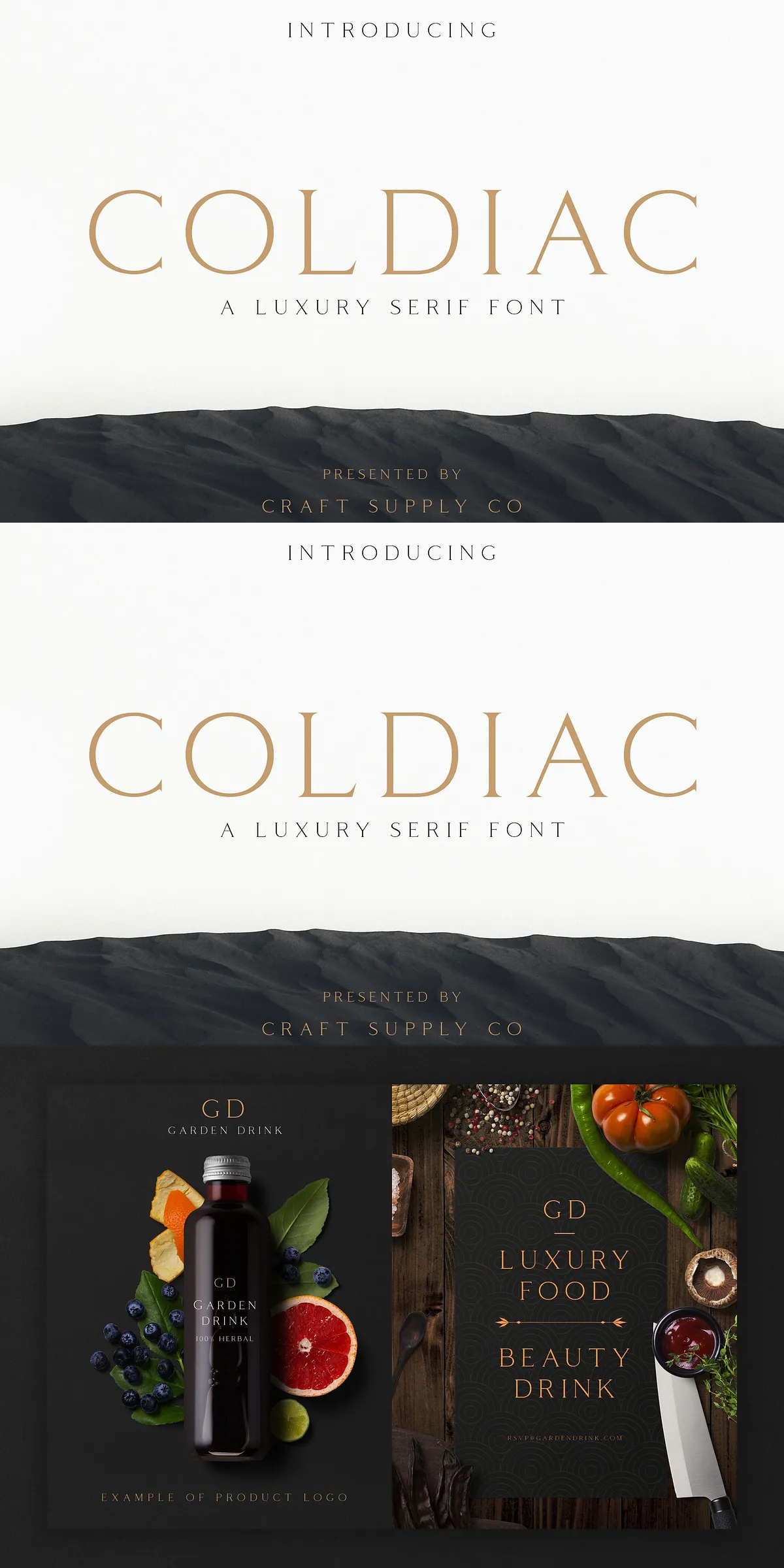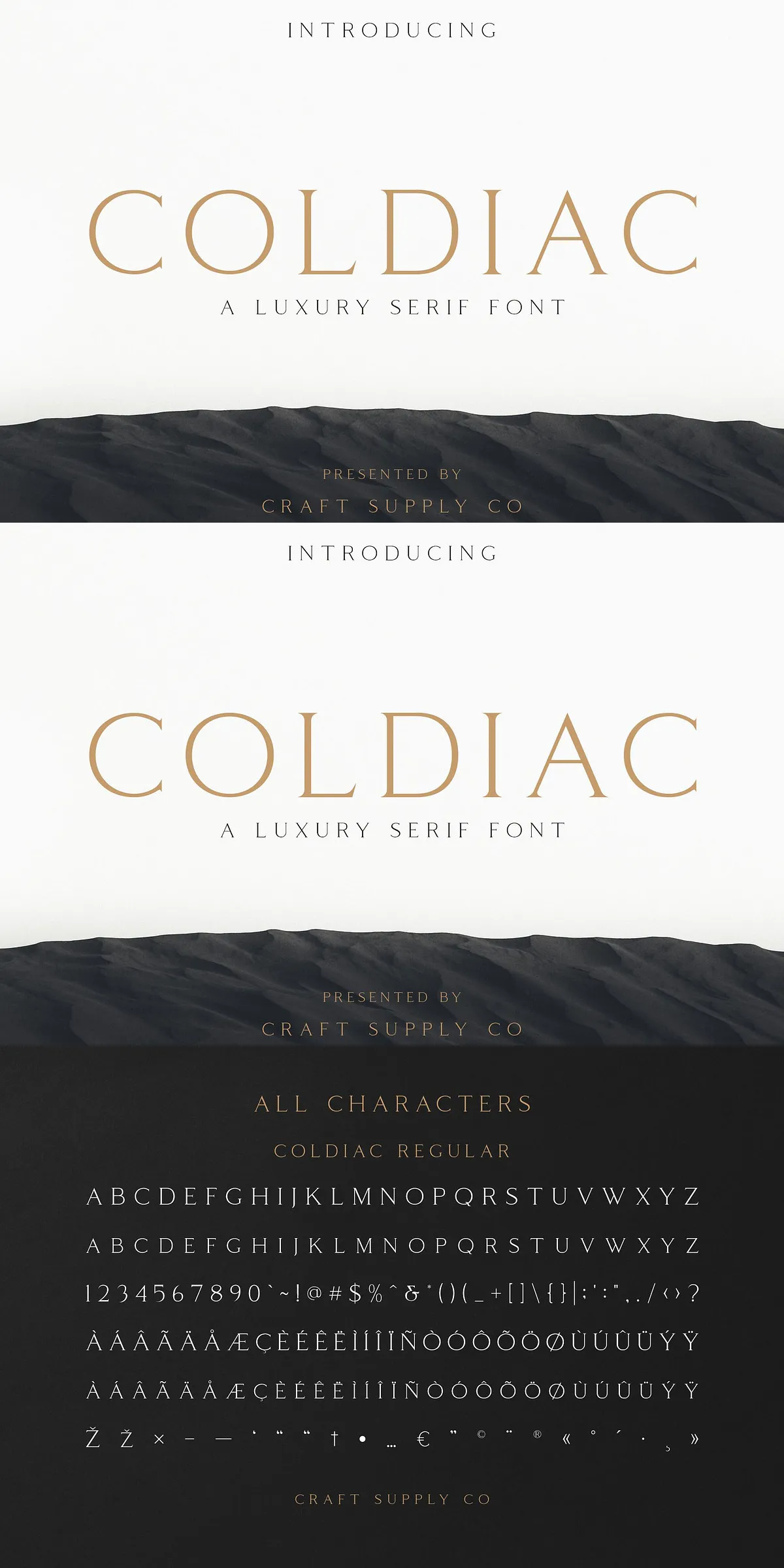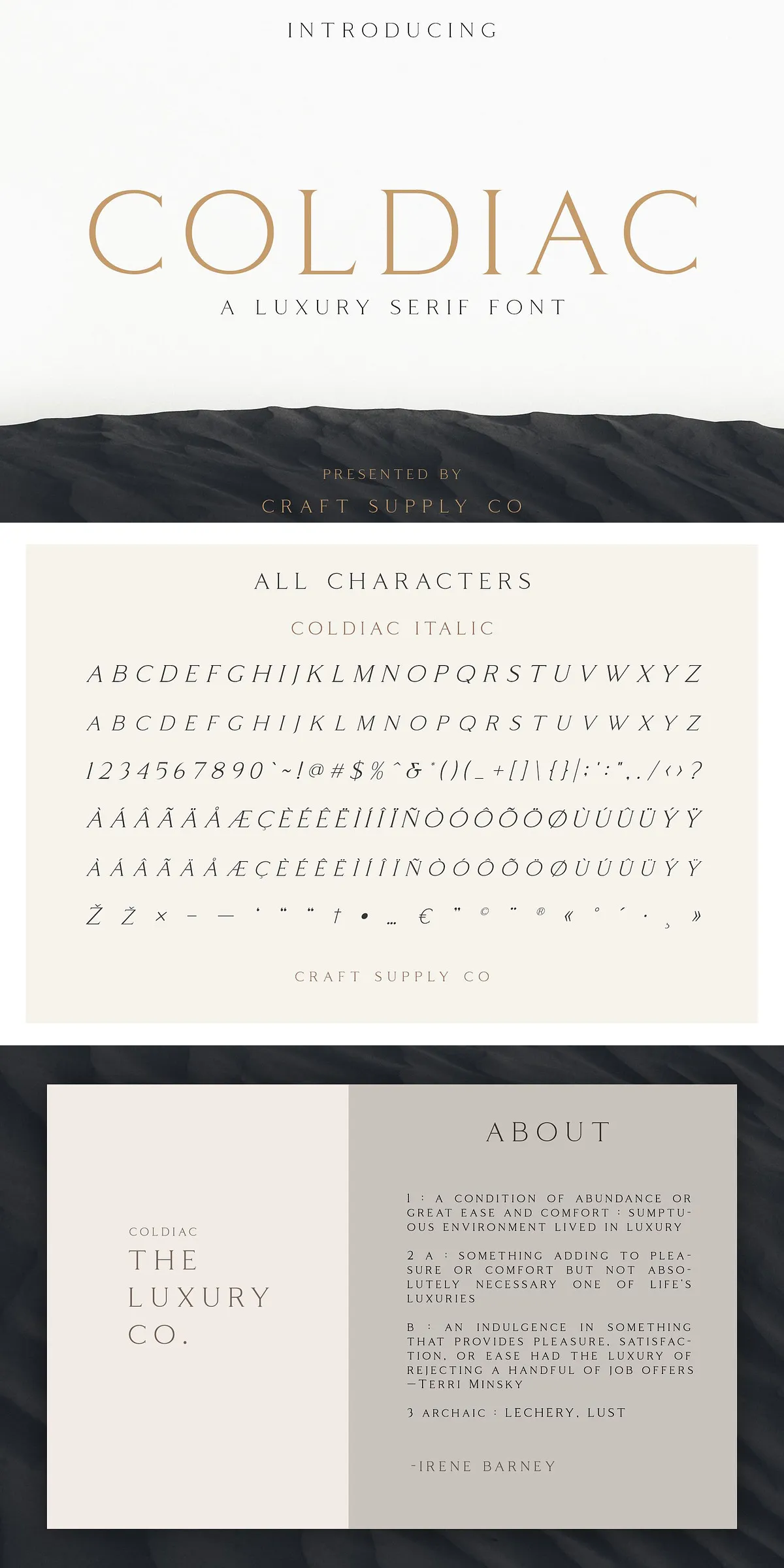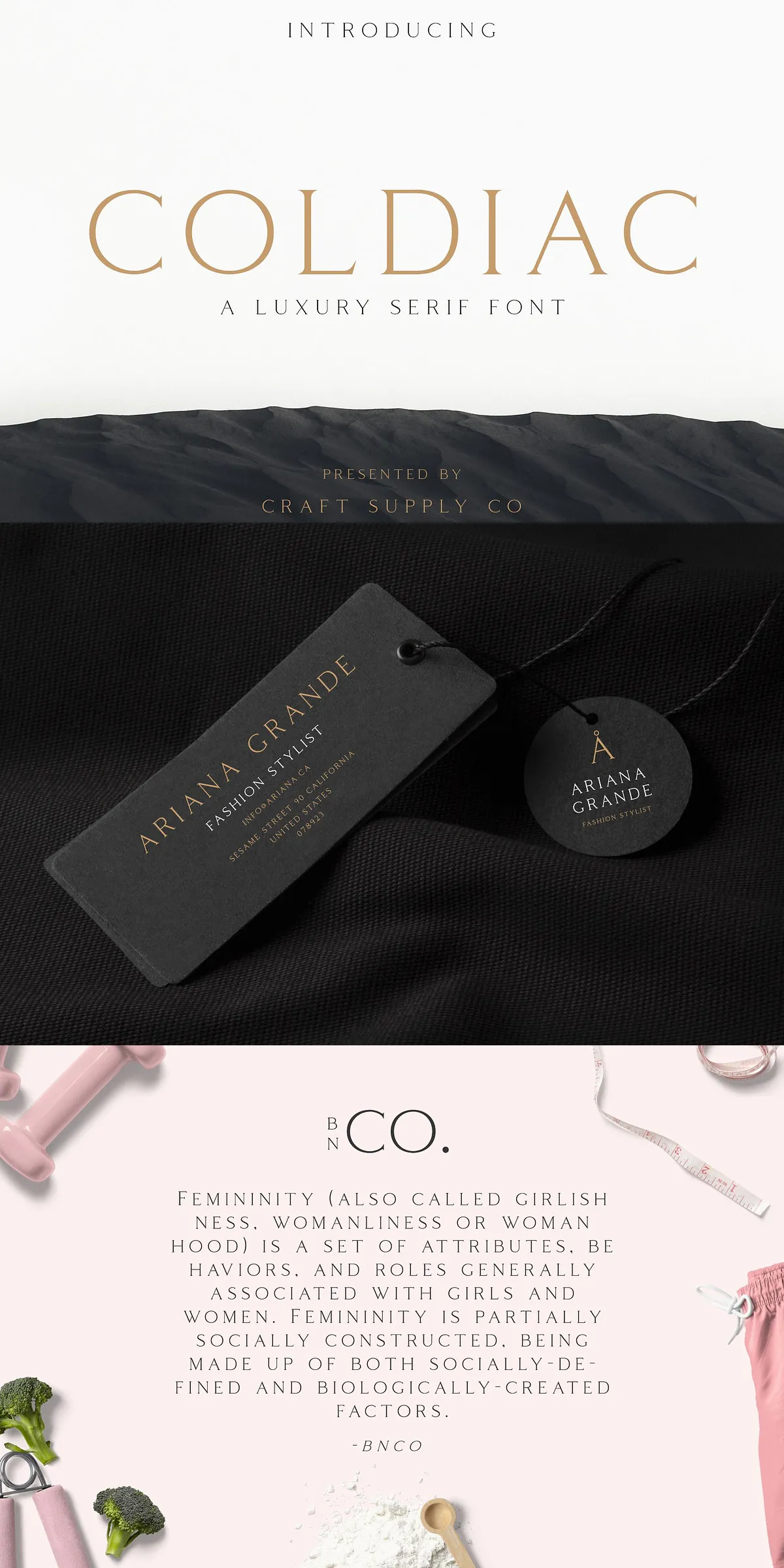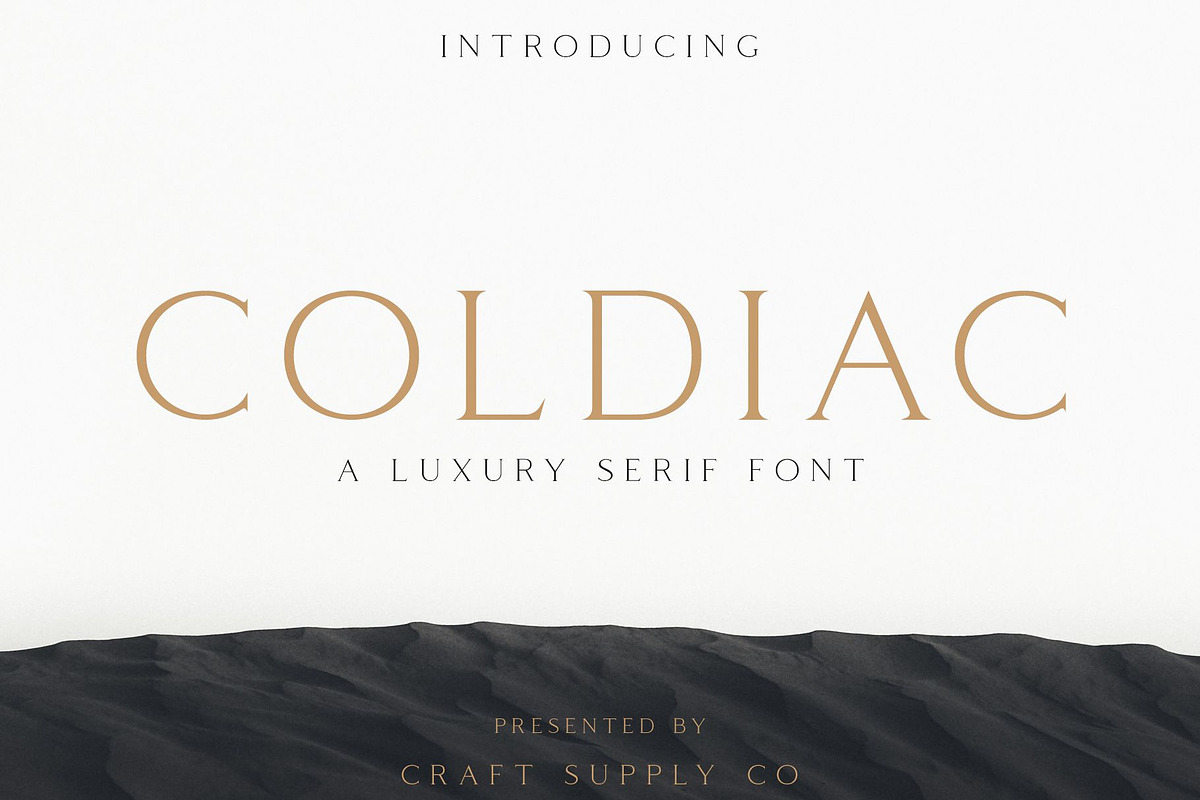
Introducing Coldiac — a meticulously crafted luxury serif font family that redefines modern elegance. Rooted in the timeless principles of transitional serifs, Coldiac blends clean geometry with refined optical balance, delivering a typeface that is both bold and poised. This is not just a font — it’s a statement of design confidence, built for creators who demand precision, presence, and prestige in every project.
Where Tradition Meets Contemporary Design
Coldiac draws inspiration from the transitional serif category — a bridge between the ornate styles of old-style serifs and the stark minimalism of modern serifs. The result? A typeface with a subtly low stroke contrast, square-shaped terminals, and a deliberate, businesslike clarity. These elements combine to create a refined yet assertive voice that commands attention without shouting.
Unlike many modern serifs that sacrifice legibility for style, Coldiac performs flawlessly at both small and large text sizes. Whether it’s a logo at 12pt or a headline in 100pt, the structure remains stable, the forms remain crisp, and the elegance remains undiminished.
Precision Engineered for Design Mastery
Coldiac was forged from the ground up with structural integrity and functional intelligence. Each character was designed using a proprietary system of optical balancing and geometric alignment to ensure consistency, harmony, and visual rhythm across all weights and styles.
Comprehensive Character Set
Coldiac supports full uppercase and lowercase letters, standard numerals, punctuation, and an extensive multilingual character set. It includes standard accents, ligatures, and PUA-encoded glyphs for expanded creative control — ideal for international campaigns, editorial layouts, and multilingual branding.
Professional-Grade OpenType Features
Access advanced typographic tools with full OpenType support:
- Stylistic Alternates – Swap standard glyphs for refined or decorative variations to enhance visual interest.
- Standard Ligatures – Ensure smooth flow between common character pairs for a polished, professional look.
- Tabular Lining Numerals – Maintain consistent alignment in tables, pricing, and data-focused design.
- PUA Encoded Glyphs – Unlock extra decorative characters for unique typographic expression.
Multifunctional Design Powerhouse
Coldiac isn’t limited to a single use — it’s versatile enough to elevate any creative domain. Its balanced personality makes it a top choice for high-impact design applications:
- Corporate & Branding Identity: Build strong, trustworthy logos and brand systems that speak confidence and refinement.
- Stationery & Greeting Cards: Elevate invitations, business cards, and thank-you notes with an air of subtle luxury.
- Posters & Print Media: Use Coldiac as a dominant headline face for event promotion, art exhibitions, or editorial features.
- Blog Headers & Typography Art: Turn quotes, chapter titles, and visual statements into captivating focal points.
- Book Design & Editorial Layouts: Offer a sophisticated yet legible companion for fiction, non-fiction, and coffee table books.
- Hand-Drawn & Watercolor-Themed Designs: Pair Coldiac with soft textures and organic elements to create a trending, artsy aesthetic.
- Wedding & Event Design: Craft invitations, seating charts, and signage that feel personal, elegant, and timeless.
- Digital & UI Typography: Use Coldiac for hero sections, testimonials, and navigation headers to create depth and elegance in web and app interfaces.